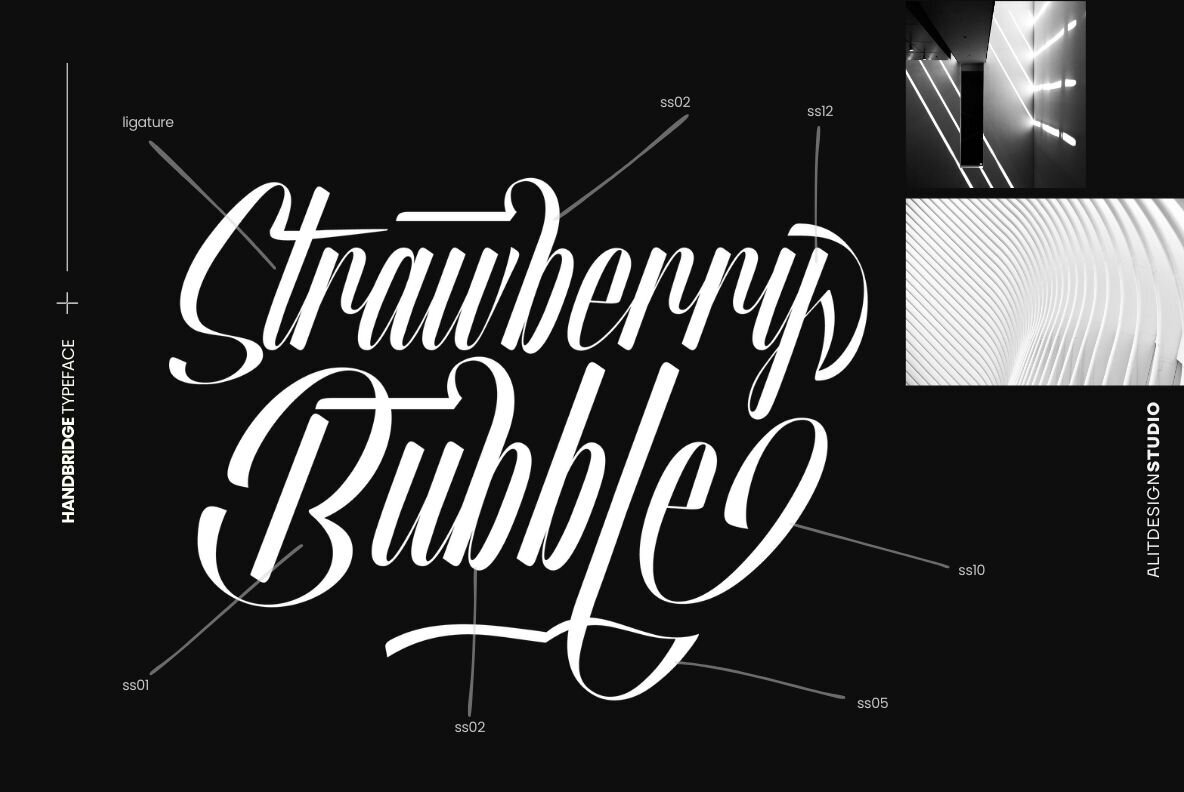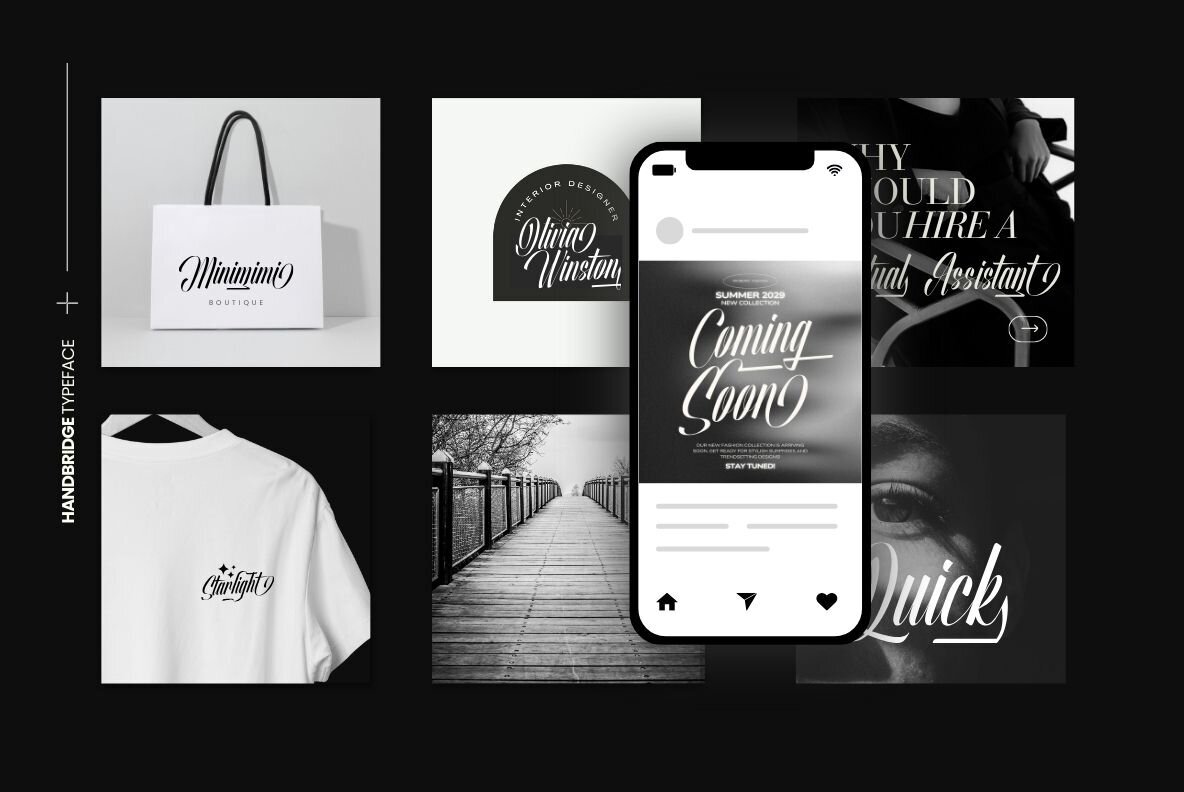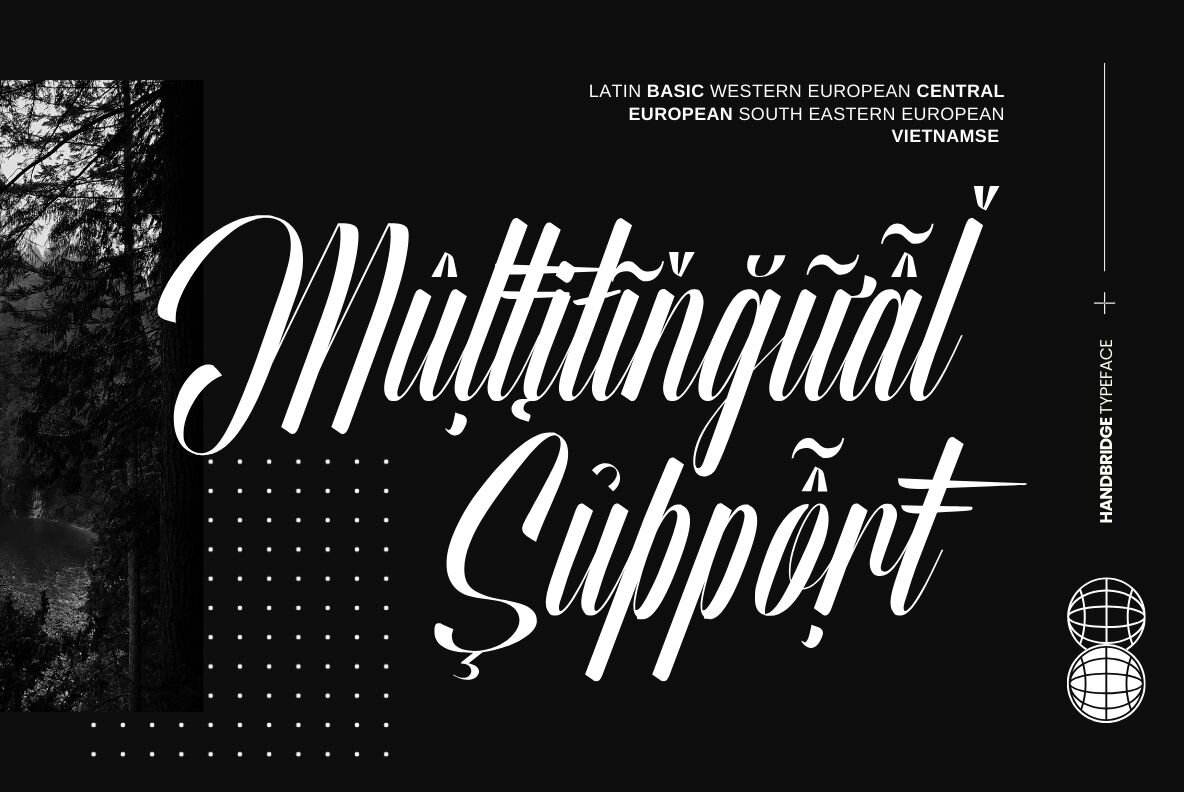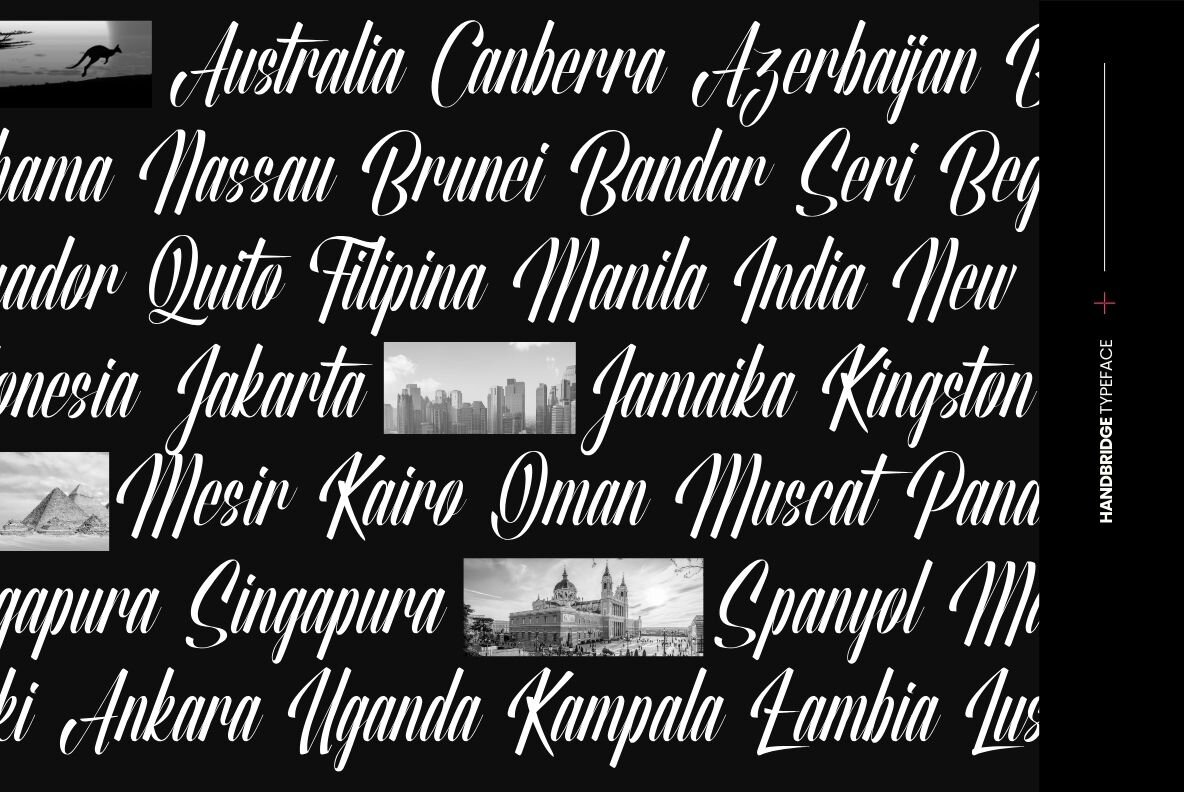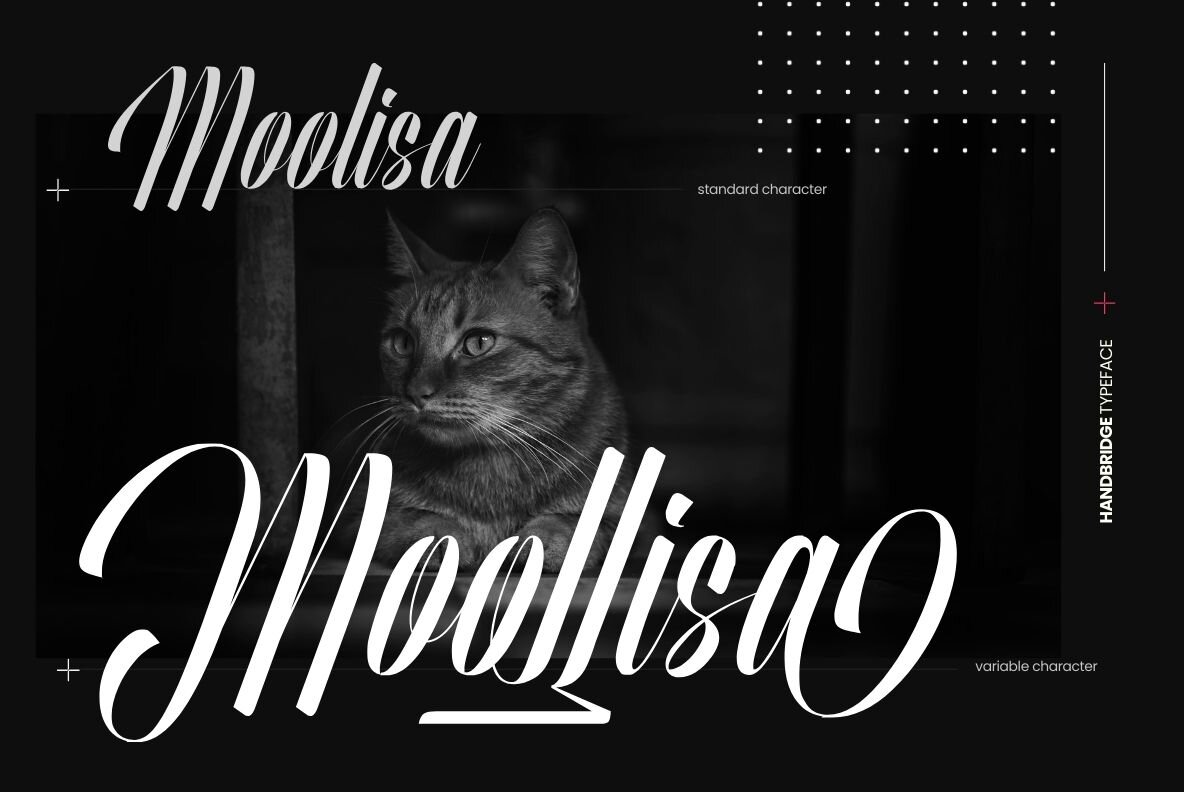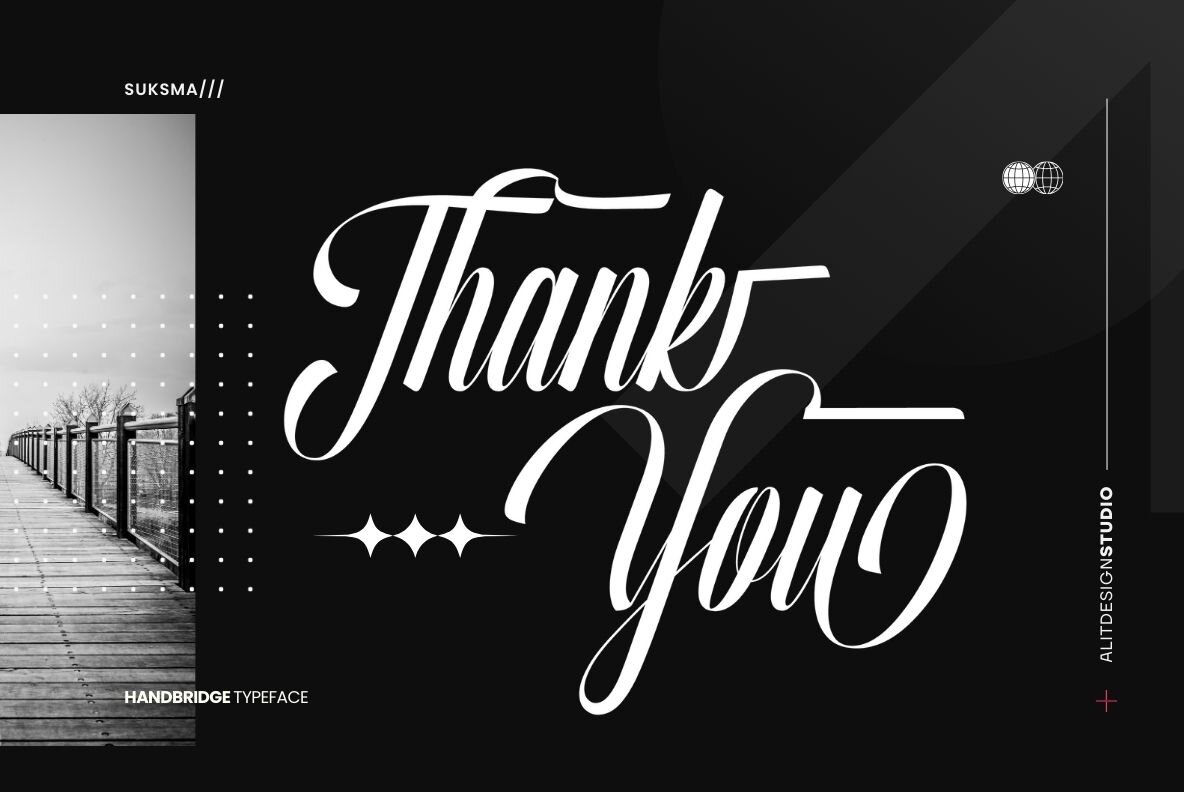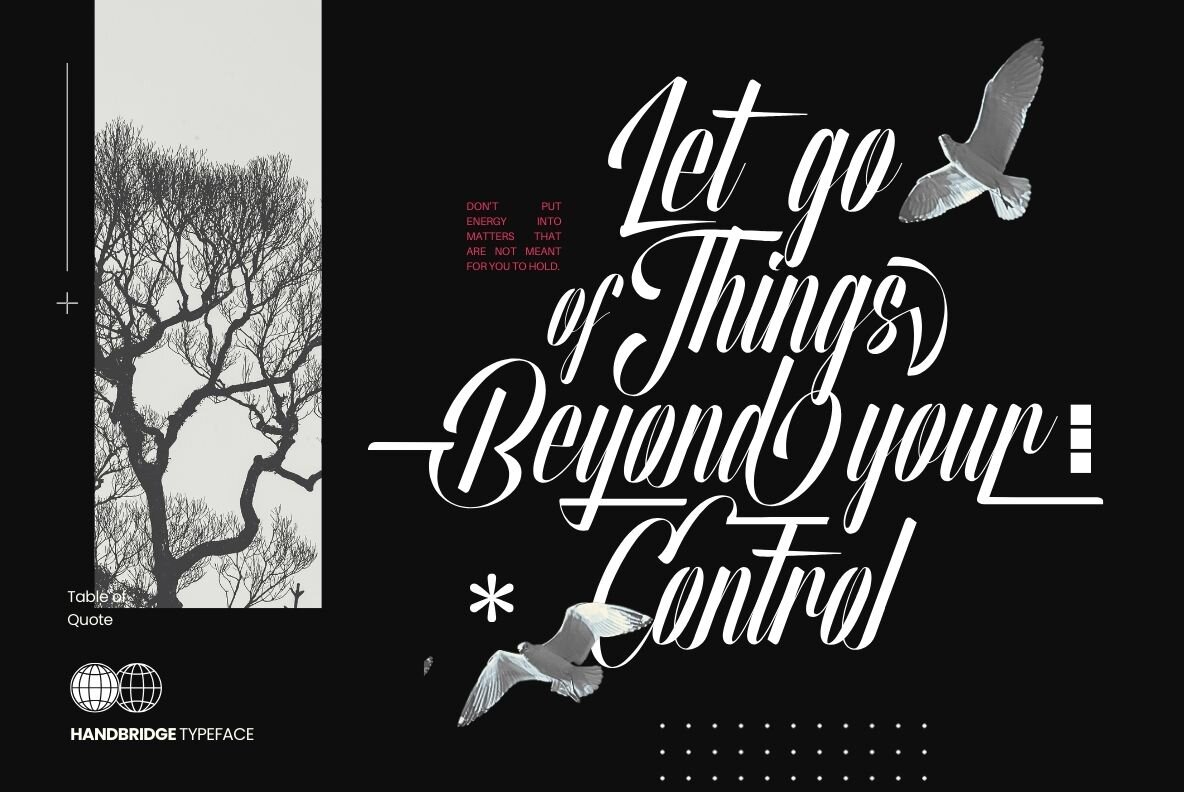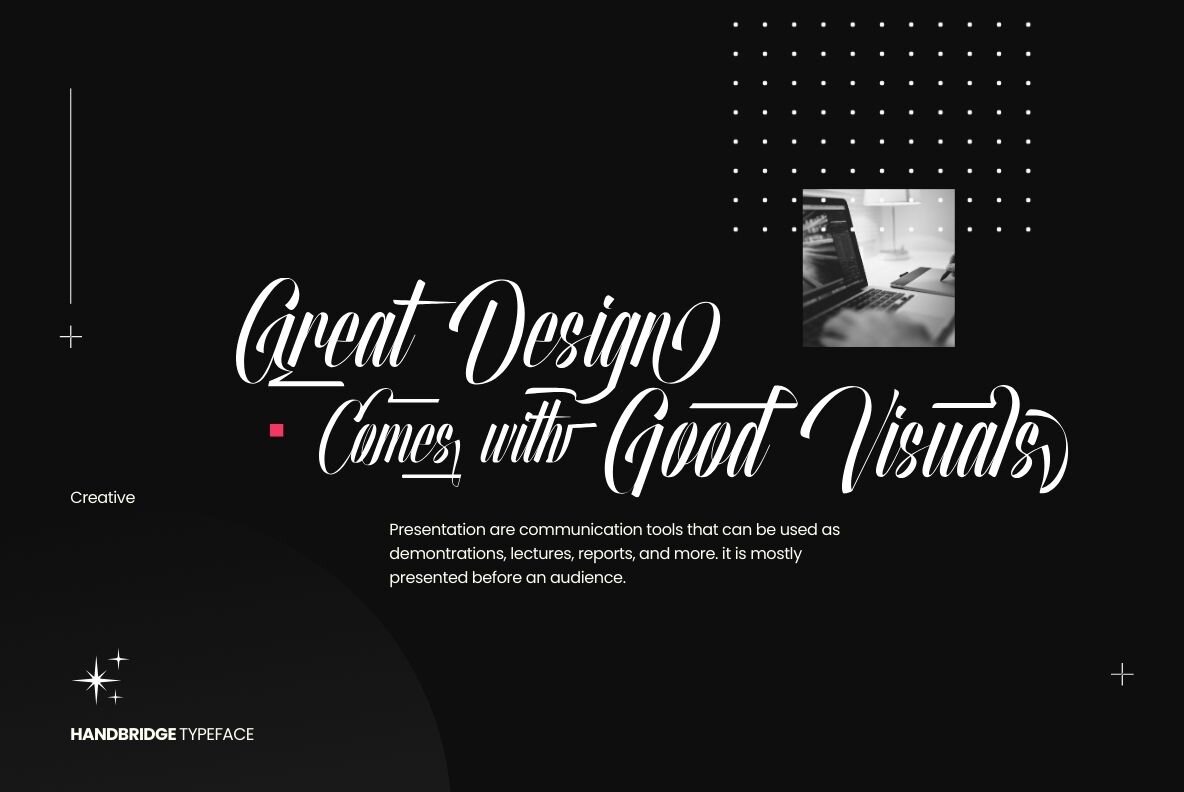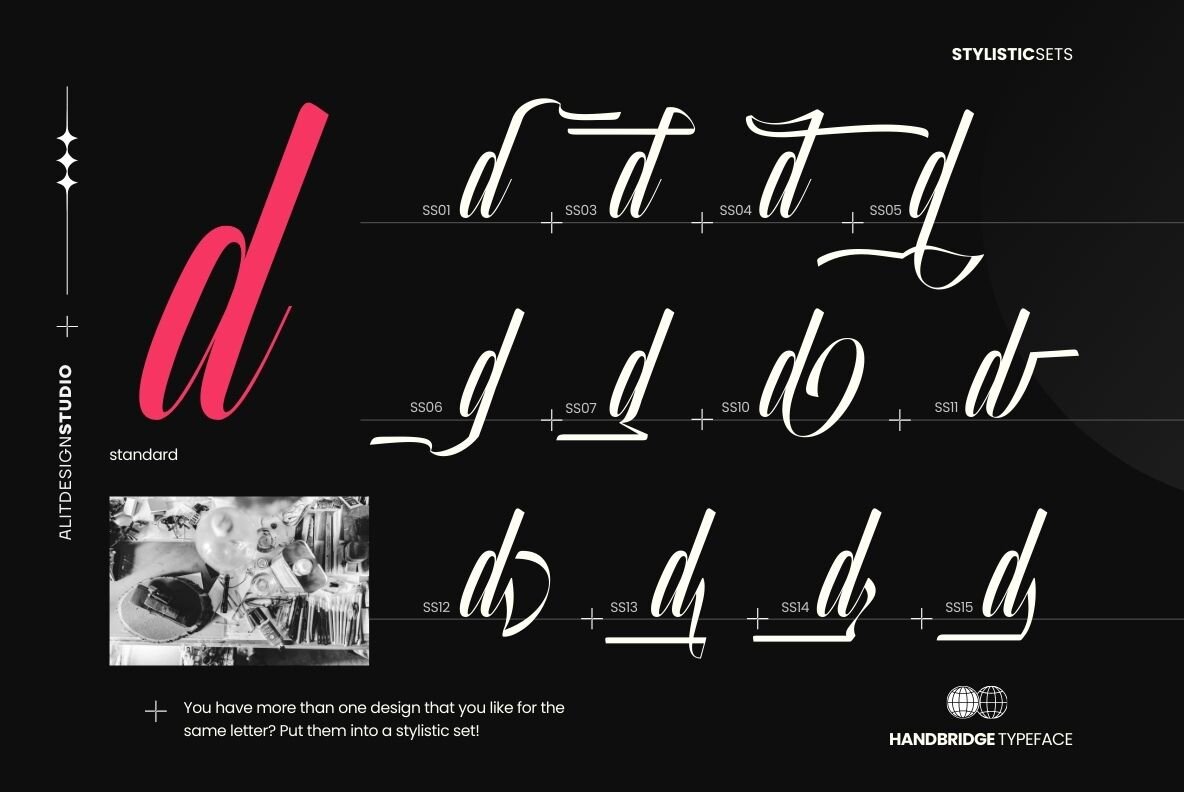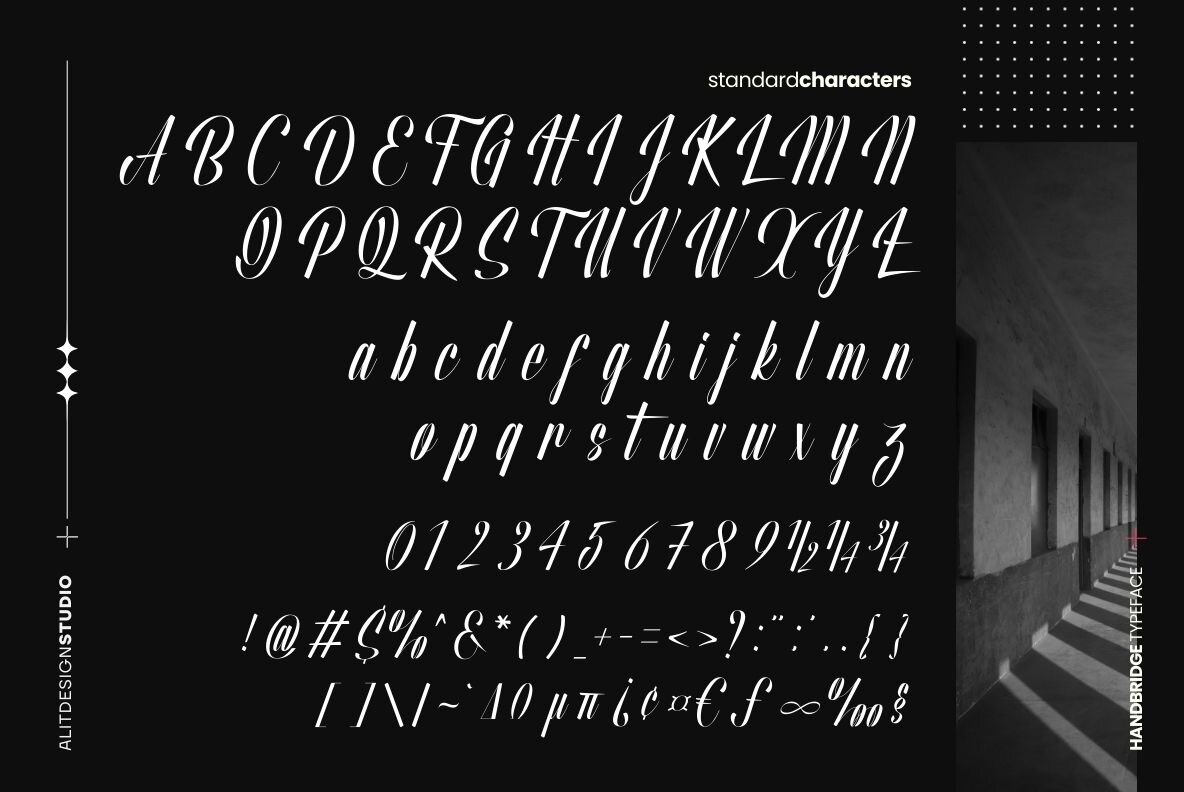
Handbridge Font
Handbridge Regular
Handbird Script Font is a dynamic and fierce typeface crafted for designs seeking speed, fluidity, and a touch of elegance. With its bold script, each letter exudes confidence, making your text stand out with a sense of motion and urgency. Perfect for fast-paced projects, it infuses your work with energy and vitality.
Key features include seamlessly connected letters through ligatures, adding a natural handwriting effect, and elegant swashes that bring sophistication to your designs. Handbird Script Font offers a comprehensive set of 722 characters, covering all your typographic needs, including multilingual support and special symbols. Whether crafting eye-catching headlines, stunning logos, or captivating social media posts, this font delivers the necessary impact and versatility for dynamic typography.